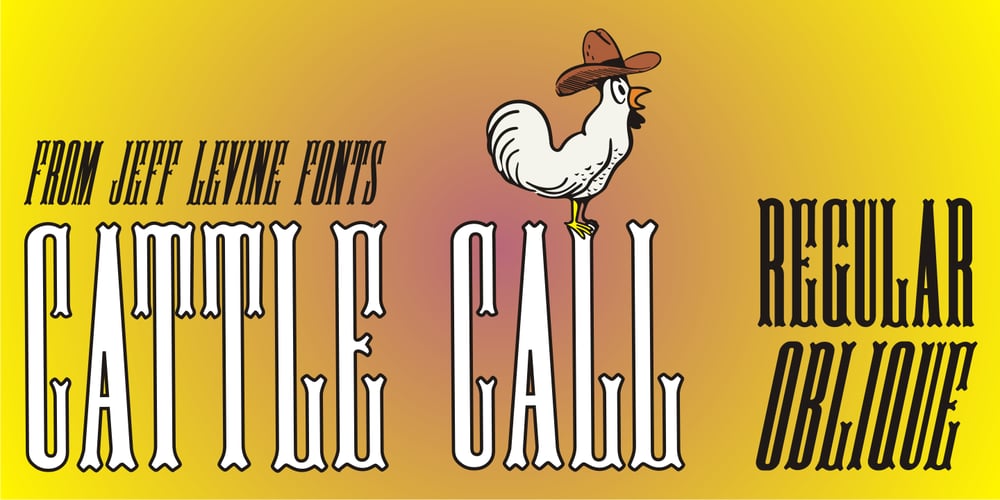
Cattle Call JNL Font Family was designed by Jeff Levine and published by Jeff Levine. Cattle Call JNL contains 2 styles and family package options. Cattle Call JNL is reminiscent of Old West posters and broadsides. The design is based on an extra condensed antique wood type and is available in both regular and oblique versions.